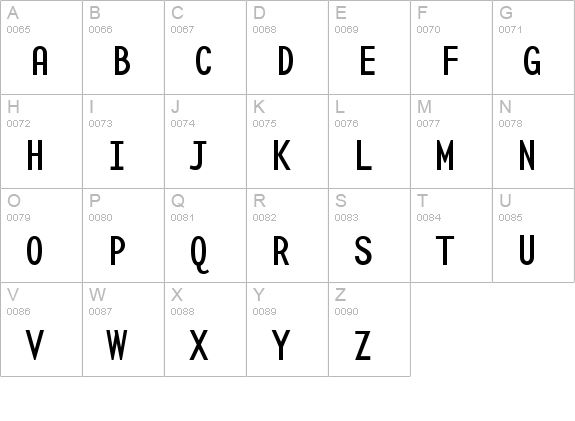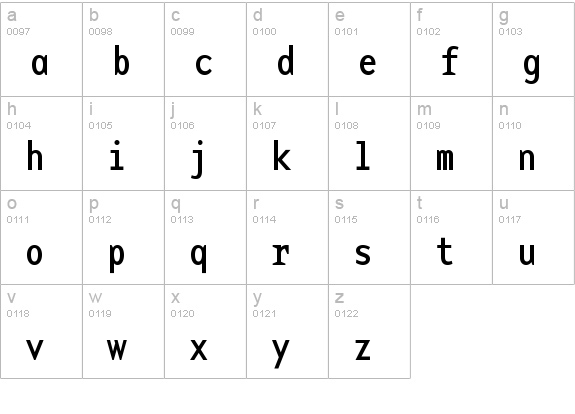
BaseMonoNarrowReg Font Details
BaseMonoNarrowReg is a sleek and modern monospaced font designed for clear and easy readability. Its narrow proportions make it ideal for coding, programming, and any other text-heavy applications where space is limited. With its clean lines and sharp edges, BaseMonoNarrowReg exudes a sense of professionalism and sophistication. This versatile font is perfect for use in a wide range of projects, from websites to print materials. Whether you're creating a technical manual, a software interface, or a stylish editorial design, BaseMonoNarrowReg will bring a touch of elegance to your work. Best of all, BaseMonoNarrowReg is completely free to download at FontsMarket.com. This means you can enjoy all the benefits of this high-quality font without any cost. Don't miss out on this opportunity to enhance your projects with the beauty and precision of BaseMonoNarrowReg.